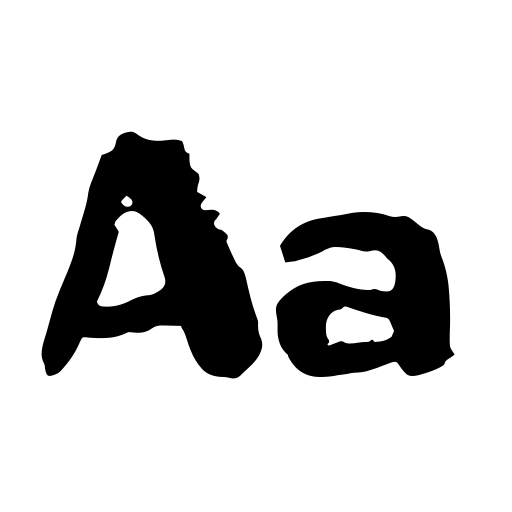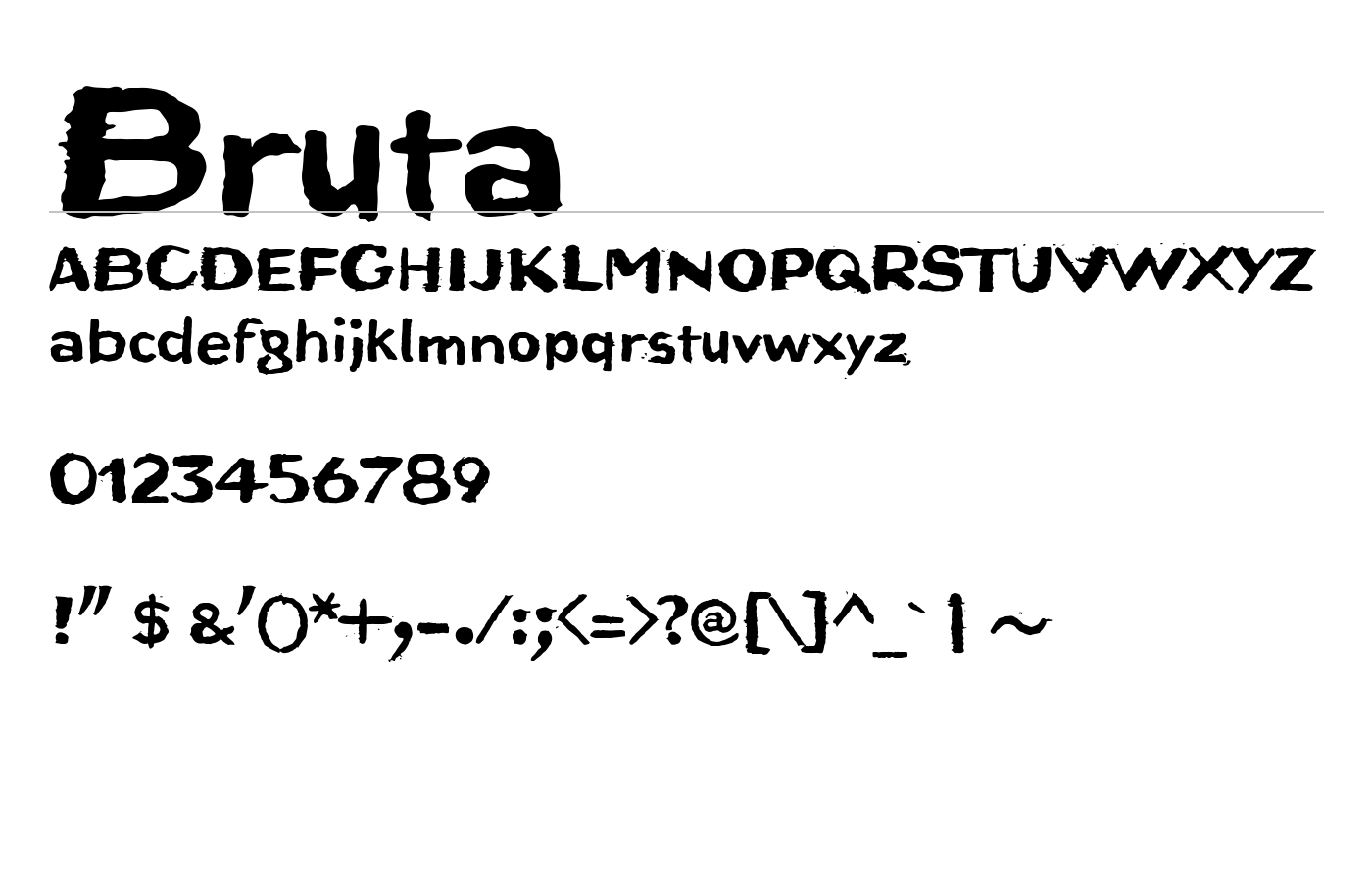
Bruta is a bold, textured sans serif font with an edgy, hand-crafted feel, characterized by its irregular, rough stroke edges and uneven letterforms. Its wide, slightly condensed proportions and medium x-height give it a strong presence, making it perfect for striking headlines and creative projects that seek a raw, authentic vibe. This font works well for edgy branding, posters, and designs that want to convey a sense of rugged individuality and artistic expression.
Bruta Font
About Bruta Font
| Designer | Ingo Zimmermann |